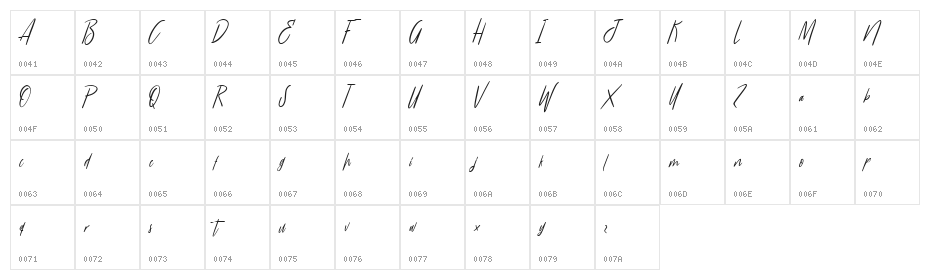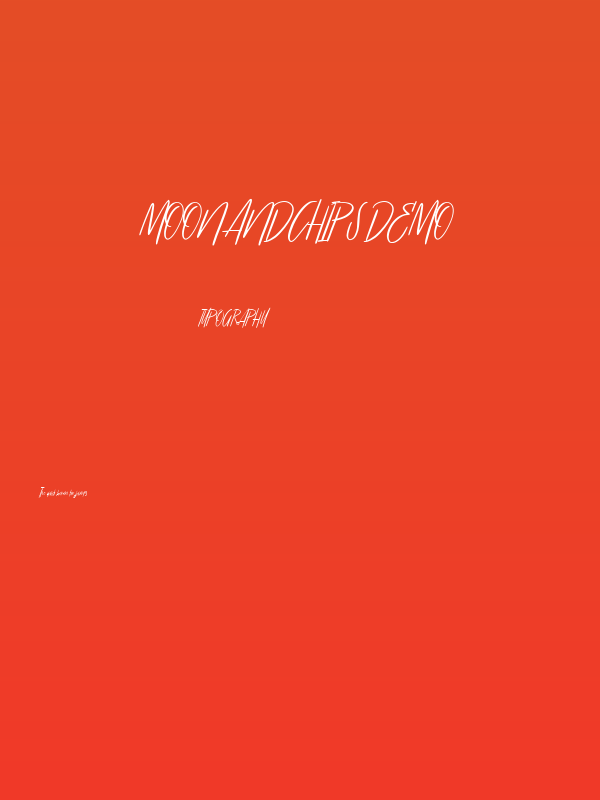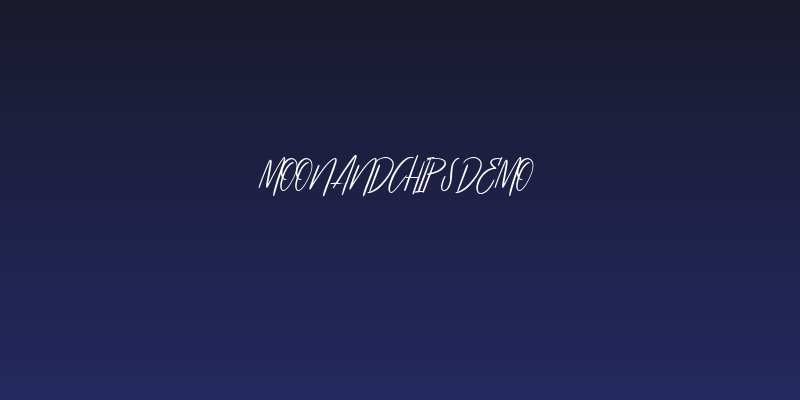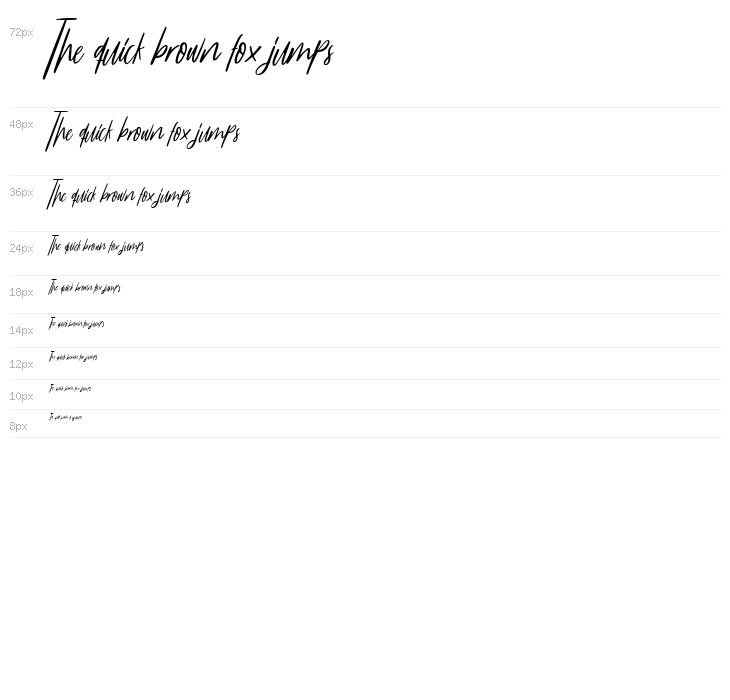
MoonAndChips-Demo Font
MoonAndChips-Demo Description
This font exudes a dynamic and energetic vibe with its fluid, cursive style. The letters are interconnected, giving a sense of continuous motion and flow. The strokes are varied, with some parts being thicker, adding a touch of boldness, while others are thin, creating an elegant contrast. The overall appearance is modern and stylish, making it suitable for creative and artistic projects. The uppercase letters are tall and slightly slanted, while the lowercase letters maintain a consistent flow, enhancing readability despite the script nature. The font's playful yet sophisticated style makes it versatile for various design needs.
| Proposed Projects | Ideal for branding, invitations, greeting cards, and artistic posters. |